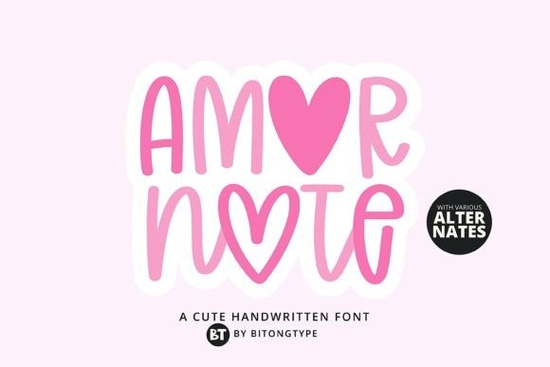
If you're looking for a relaxed, handwritten font that feels genuine not overly polished or artificial Amor Note Font is a solid choice. It’s designed to mimic natural chalkboard writing: slightly uneven letterforms, subtle texture, and a friendly rhythm that works especially well for classroom materials, quote posters, greeting cards, or small-batch printables. Unlike some script fonts that rely on tight flourishes or formal calligraphy, Amor Note keeps things approachable and legible at medium sizes ideal if your audience includes kids, teachers, or casual shoppers browsing handmade goods.
When does Amor Note Font work best?
This font shines in contexts where warmth and authenticity matter more than formality. Think: chalk-style café menus, hand-lettered lesson plans, DIY wedding signage, or printable habit trackers for educators. Its informal tone makes it less suited for corporate reports or legal documents but that’s by design. If your project calls for something that feels like it was written with chalk, marker, or a soft-tip pen, this is worth testing alongside other handwritten script fonts.
The Amor Note Font is PUA encoded, which means all alternate characters, ligatures, and stylistic glyphs are easy to access in design apps like Adobe Illustrator, Canva (with custom font upload), or Affinity Designer no need for complex OpenType panels. You’ll find swashes, contextual alternates, and even a few playful connecting letters that help avoid repetition when typing longer phrases.
Practical tips for using Amor Note Font
- Pair it wisely: Use it with clean sans-serifs like Montserrat or Open Sans for contrast avoid pairing with other decorative scripts unless you’re intentionally going for layered texture.
- Watch spacing: Handwritten fonts can look cramped if tracking is too tight. Try increasing letter-spacing by 10–20 units in Illustrator or adjusting “kerning pairs” manually for headlines.
- Test readability early: Preview at 16–24pt for body text (e.g., worksheets) and 48pt+ for display use (e.g., wall art). Some glyphs have subtle joins that blur at smaller sizes.
- Use ligatures selectively: Not every word needs a fancy connection. Enable them for titles or short quotes, but disable for longer paragraphs to keep reading smooth.
If you’re building a library of reliable script fonts for client work or your own shop, consider how Amor Note fills a specific gap: the “friendly teacher,” “cozy café,” or “thoughtful gift” voice. It’s not trying to be everything just one thing, really well.